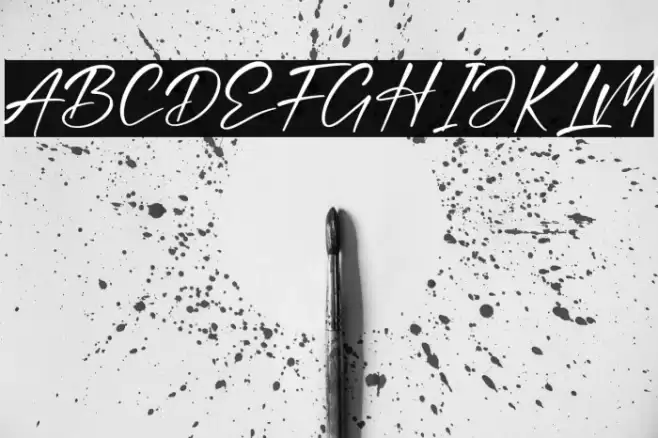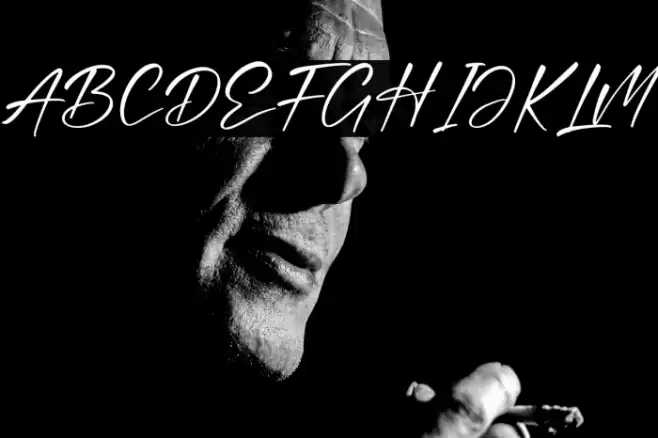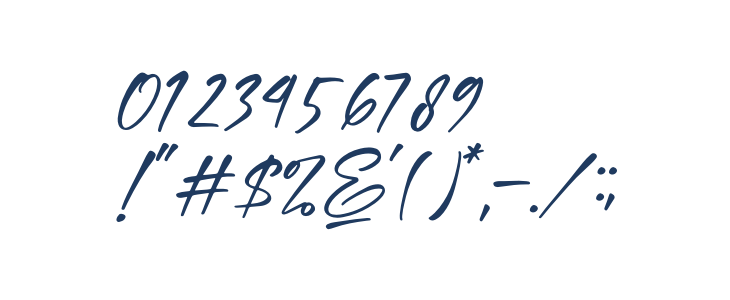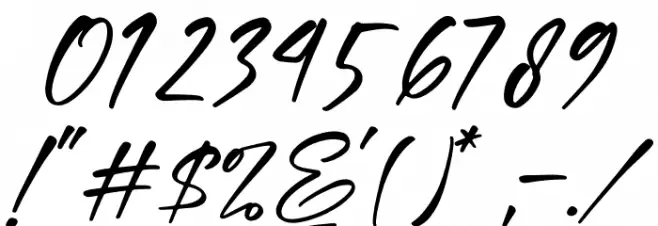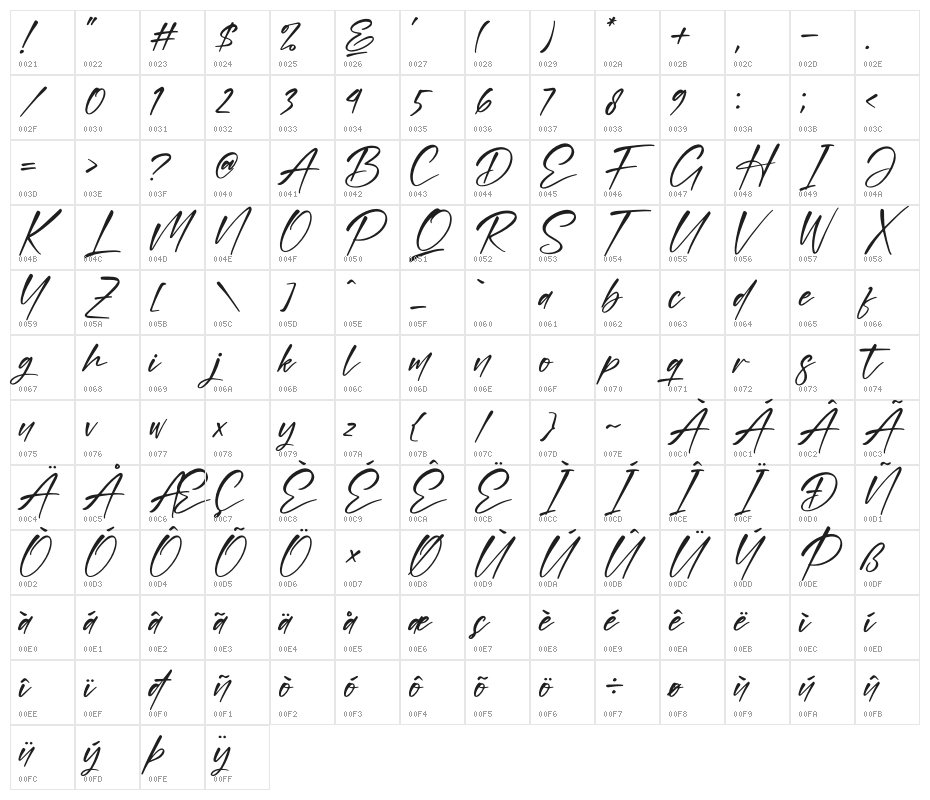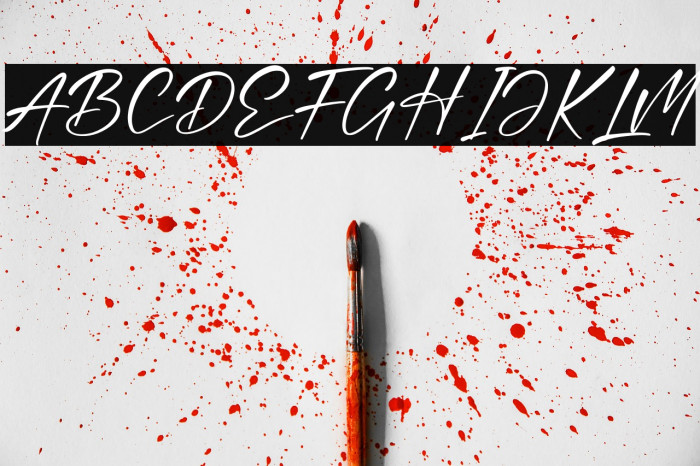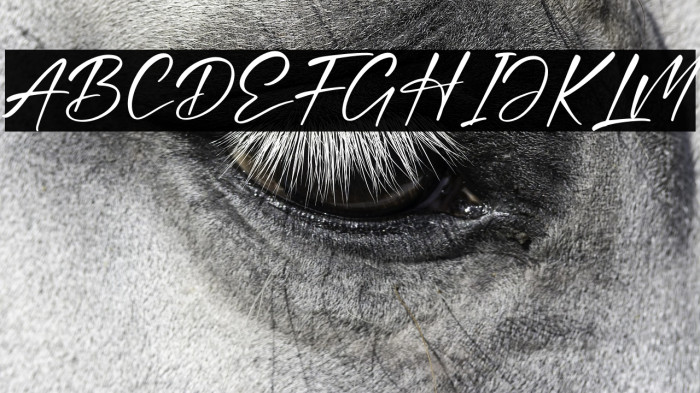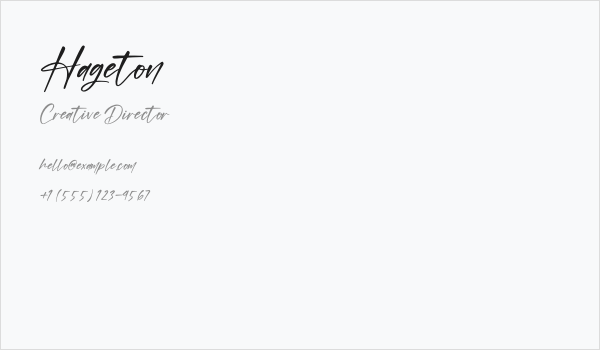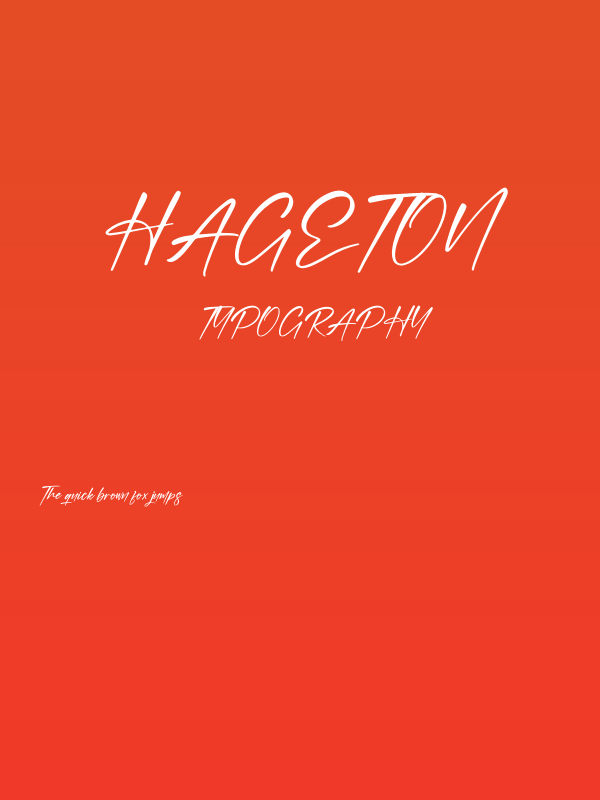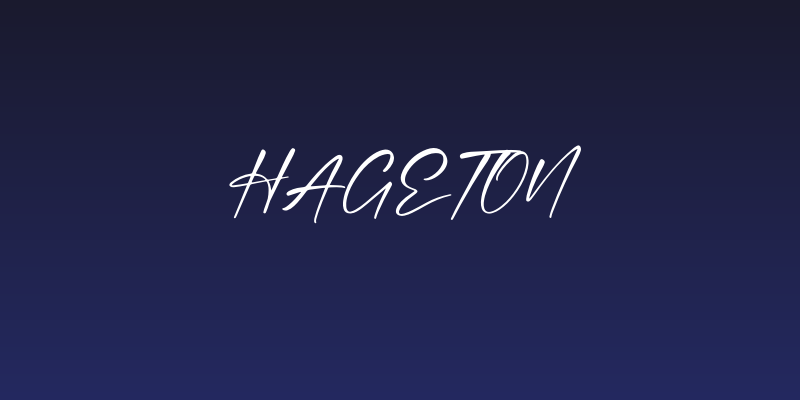
Hageton Font
Hageton Description
This font features a dynamic and energetic script style, characterized by its fluid and expressive strokes. The uppercase letters are slightly slanted, giving a sense of motion and elegance, while the lowercase letters maintain a consistent flow with occasional flourishes. The numerals are bold and slightly rounded, complementing the overall style. Special characters are creatively designed, adding to the font's unique personality. This font exudes a modern and artistic vibe, making it suitable for creative projects that require a personal touch.
A dynamic and expressive script font with fluid strokes and artistic flair from Uncategorized fonts.
- Proposed Projects: Ideal for branding, invitations, greeting cards, and artistic posters.
- Use Case: Logos, Headlines, Artistic projects